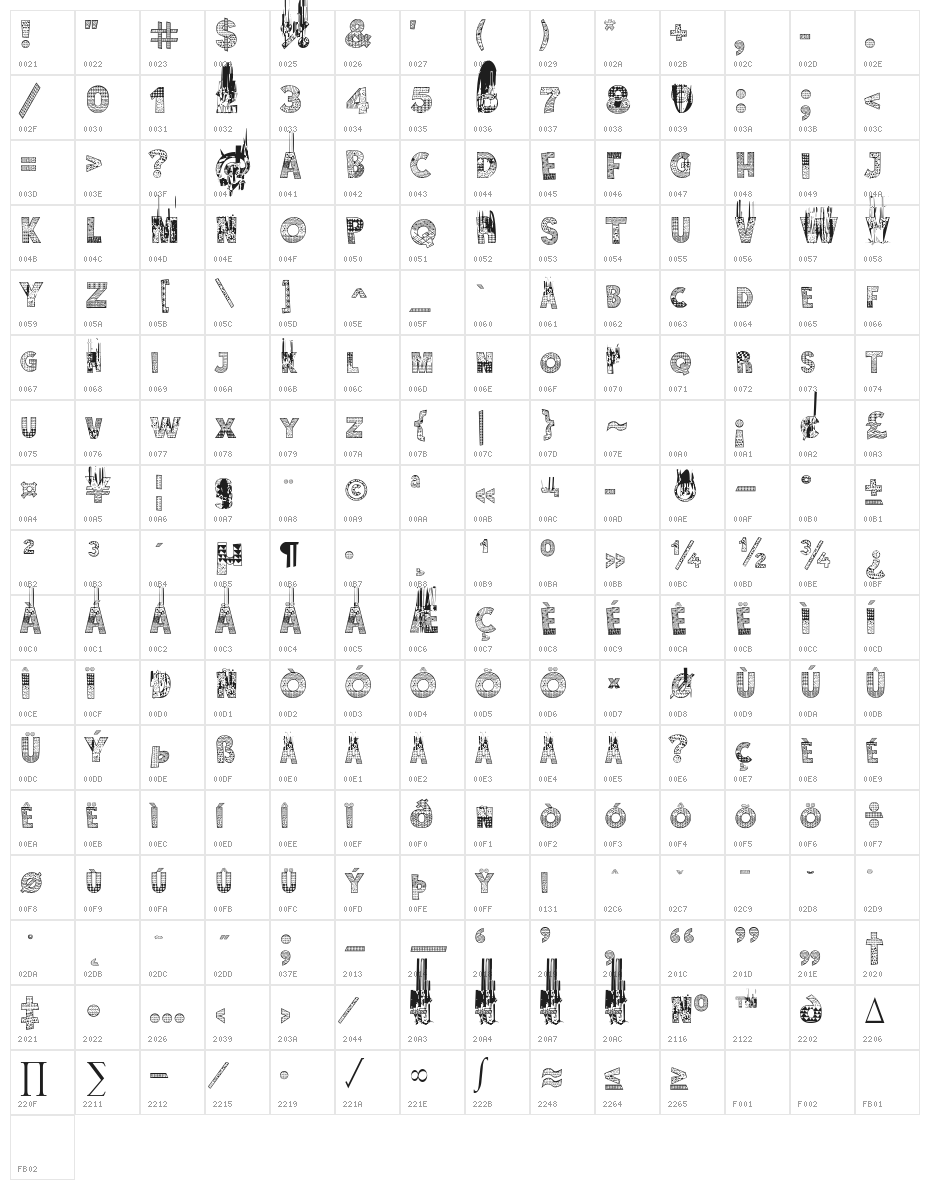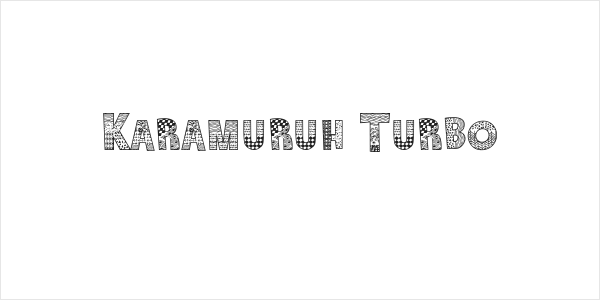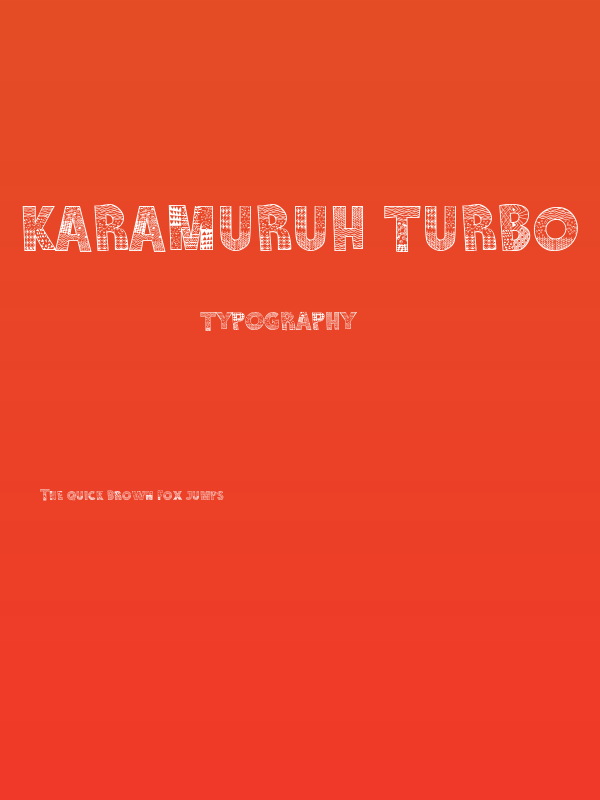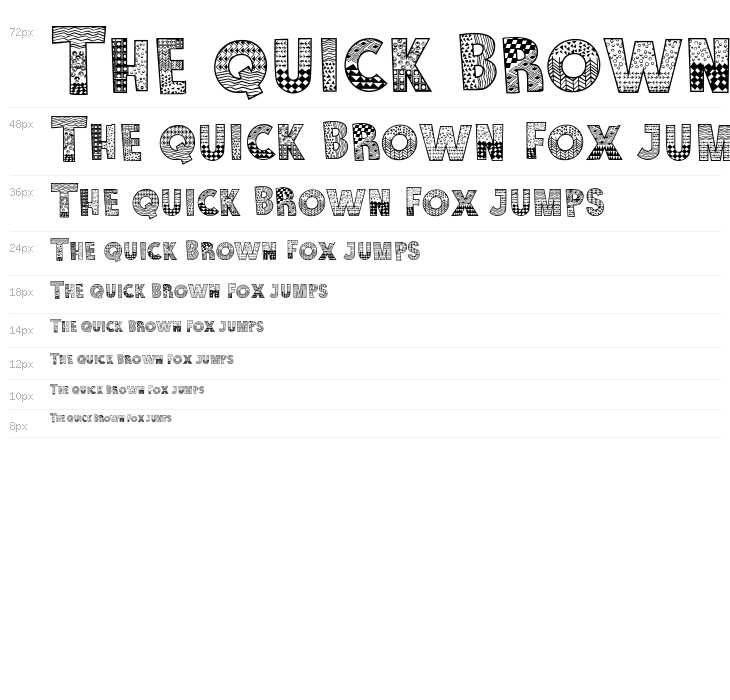
Karamuruh Turbo Font
Karamuruh Turbo Description
This font features a playful and artistic design, characterized by bold, uppercase and lowercase letters filled with intricate patterns and textures. Each character is uniquely decorated with a variety of geometric shapes, lines, and dots, creating a vibrant and dynamic appearance. The numbers and special characters follow the same decorative style, making the entire set cohesive and visually engaging. The font's hand-drawn aesthetic gives it a whimsical and creative feel, suitable for projects that require a touch of fun and individuality.
Proposed ProjectsIdeal for children's books, creative posters, event invitations, and artistic branding projects.